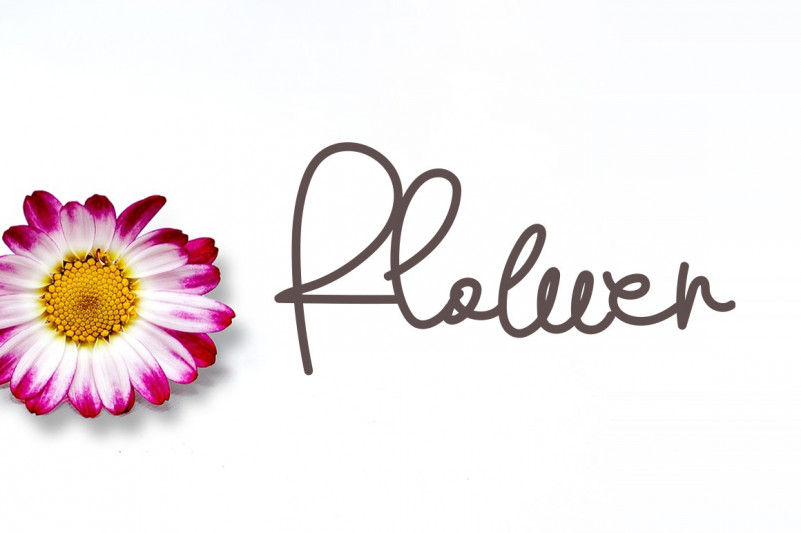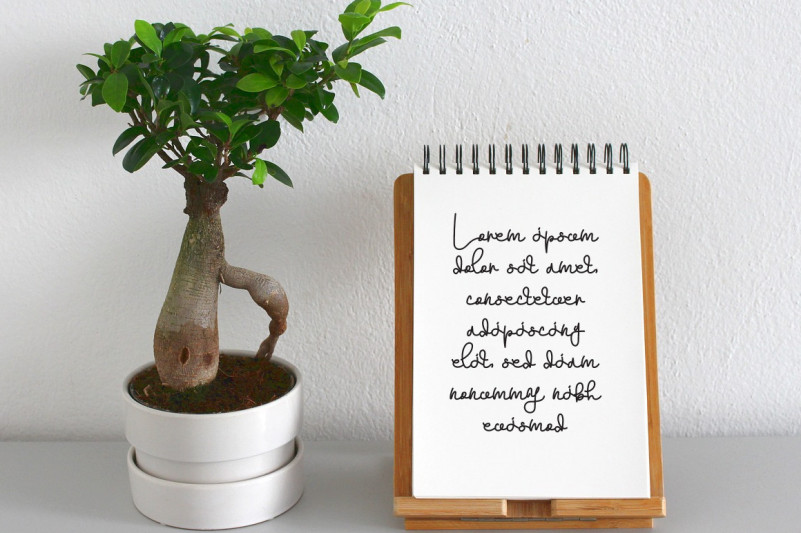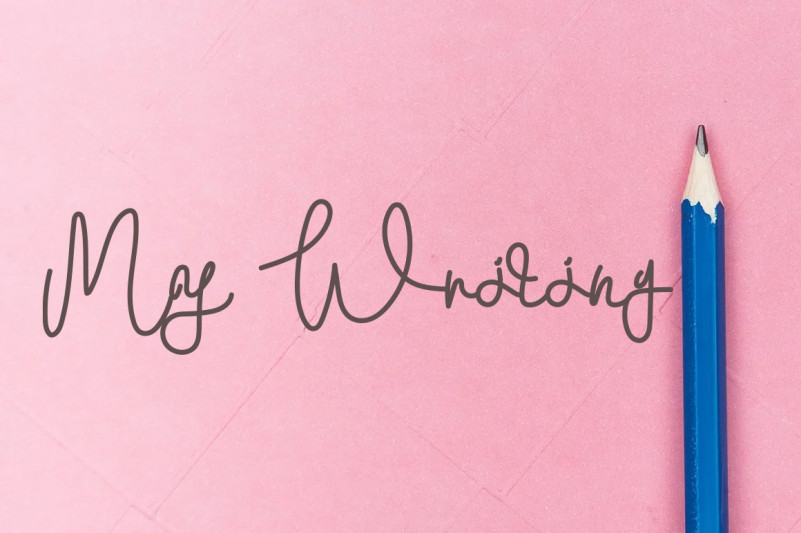
Abashed Font
Abashed Handwritten Font
This is a dainty, thin and fashionable handwritten font. This gentle font will look gorgeous on a variety of design ideas. It will add a joyful and romantic touch to each of your projects!
Abashed Handwritten Font is a very talented product for you to use,
Latest letters that can be used for various products, invitations, wall hangings, weddings, and more.